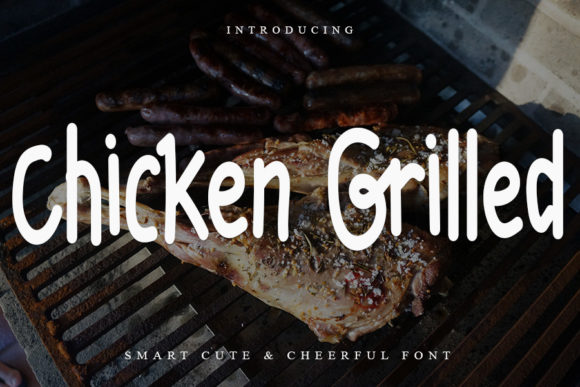
Introducing Chicken Grilled Font: The Ultimate Display Font for Creative Designs
Are you looking for a unique and adorable display font to elevate your designs? Look no further than Chicken Grilled Font! This charming font is perfect for adding a touch of beauty to your cartoon-related designs, children’s games, quotes, titles, brand names, book covers, posters, and more. In this article, we’ll dive into the features and benefits of Chicken Grilled Font, and explore how it can take your creative projects to the next level.
What is Chicken Grilled Font?
Chicken Grilled Font is a one-of-a-kind display font that boasts a distinctive and endearing style. Its unique design makes it an excellent choice for projects that require a playful and eye-catching aesthetic. Whether you’re a graphic designer, artist, or DIY enthusiast, this font is sure to capture your audience’s attention and leave a lasting impression.
Key Features of Chicken Grilled Font
- Unique and Cute Design: Chicken Grilled Font features a charming and whimsical design that sets it apart from other fonts.
- High-Quality Letters: The font consists of high-quality letters that are perfect for creating stunning designs.
- Multipurpose: Chicken Grilled Font is versatile and can be used for a wide range of projects, from cartoon-related designs to book covers and posters.
- Easily Customizable: The font is easy to customize, allowing you to adjust the size, color, and style to fit your design needs.
Benefits of Using Chicken Grilled Font
So, why choose Chicken Grilled Font for your designs? Here are just a few benefits of using this amazing font:
- Adds a Touch of Beauty: Chicken Grilled Font adds a touch of elegance and sophistication to your designs, making them stand out from the crowd.
- Increases Engagement: The font’s unique and playful design captures the audience’s attention, increasing engagement and interaction with your content.
- Versatile: Chicken Grilled Font can be used for various projects, making it a valuable addition to your font library.
- Easy to Read: The font is clear and easy to read, ensuring that your message is communicated effectively.
Use Cases for Chicken Grilled Font
Chicken Grilled Font is an incredibly versatile font that can be used for a wide range of projects. Here are some use cases to get you started:
- Cartoon-Related Designs: Use Chicken Grilled Font to create fun and playful cartoon characters, logos, and titles.
- Children’s Games: Add a touch of whimsy to your children’s games with this delightful font.
- Quotes and Titles: Use Chicken Grilled Font to create eye-catching quotes, titles, and headings for your blog posts, articles, and social media content.
- Brand Names: Create a memorable brand identity with Chicken Grilled Font, perfect for startups and small businesses.
- Book Covers: Use this font to create stunning book covers that capture the reader’s attention.
- Posters: Create eye-catching posters for events, promotions, and advertisements with Chicken Grilled Font.
- Keep it Simple: Don’t overcomplicate your design – keep it simple and clean to let the font shine.
In conclusion, Chicken Grilled Font is an exceptional display font that can elevate your designs to new heights. Its unique and cute design, high-quality letters, and multipurpose nature make it an excellent choice for a wide range of projects. By incorporating Chicken Grilled Font into your design arsenal, you’ll be able to create stunning and engaging designs that capture your audience’s attention. So why wait? Download Chicken Grilled Font today and start creating amazing designs!